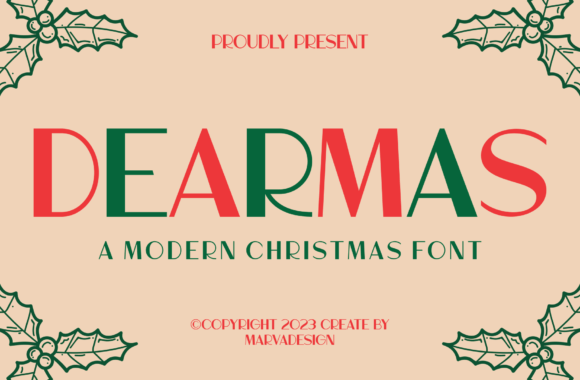
Deck the Halls with the Perfect Font
It’s that time of the year again – the holiday season is just around the corner, and designers are scrambling to create the perfect festive brand materials. You’ve spent hours brainstorming ideas, pouring over design trends, and tweaking your creations until they’re just right. But what if you could take your designs to the next level with a font that’s as merry as it is modern?
Enter Dearmas Font, our newest addition to the world of authentic display fonts. This versatile font is designed to elevate any branding project, from logos to template designs, and everything in between. With its unique blend of elegance and playfulness, Dearmas Font is the perfect companion for designers looking to add a touch of holiday cheer to their work.
Dearma Font Key Features
- Unique Characteristics: Dearma Font features a unique blend of modern and traditional design elements, with intricate details and ornaments that add a touch of elegance and sophistication.
Review of Dearmas Font
Overall, I think Dearmas Font is a solid addition to any designer’s toolkit, but it has some limitations that might make it less ideal for certain projects.
- ✨ Beautifully crafted, modern aesthetic that’s perfect for trendy brands and websites.
- ✨ Excellent legibility, making it suitable for body text and headings.
- ✨ A wide range of weights and styles, allowing for a lot of creative freedom.
- ⚠️ Limited support for complex scripts and languages, which might be a concern for global brands.
- ⚠️ Some users have reported issues with font rendering at smaller sizes, which could be a problem for accessibility.
- ⚠️ The font’s unique style might not be to everyone’s taste, and some designers might find it too trendy or overused.
In conclusion, Dearmas Font is a great choice for designers who want a modern, stylish font that’s perfect for trendy brands and websites. However, it’s essential to be aware of its limitations, especially when working with complex scripts or requiring high levels of accessibility. With proper consideration and use, Dearmas Font can be a valuable addition to any designer’s toolkit.
Dearmas Font is ideal for use in creative projects, such as:
1. Branding and logos.
2. Brochures and flyers.
3. Social media graphics.